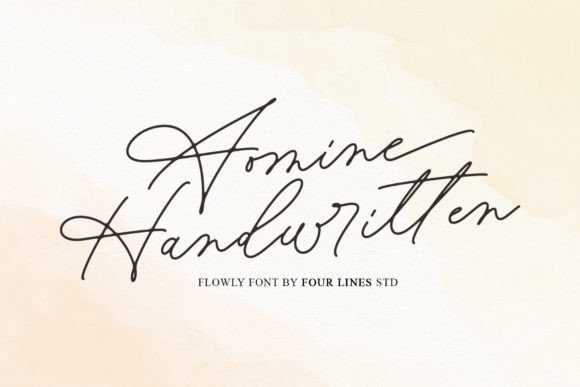
The Aomine Font: A Delicate, Elegant, and Casual Handwritten Gem
I’ll never forget the design moment when I stumbled upon the Aomine font. I was working on a project for a client who wanted a custom branding package, and I was struggling to find the perfect font to match their playful yet sophisticated vibe. That’s when I discovered Aomine, a delicate, elegant, and casual handwritten font that has since become a staple in my design toolkit.
As a designer, I’m always on the lookout for fonts that can elevate my projects and make them stand out. Here’s what I love about Aomine:
• ✨ Balanced characters: Aomine’s characters are meticulously crafted to ensure balance and harmony, making it perfect for a wide range of designs.
• ✅ Elegant and casual: This font seamlessly blends elegance and casualness, making it ideal for projects that require a touch of sophistication and playfulness.
• 💫 Versatility: Aomine matches a wide pool of designs, from modern and minimalist to vintage and whimsical.
While Aomine is an excellent font, it’s not without its quirks:
• 🤔 Limited availability of certain glyphs: Some users have reported that certain glyphs, such as ligatures, are not readily available.
• ⚠️ Occasional kerning issues: As with any font, kerning issues may arise, especially when using Aomine in combination with other fonts.
The Designer Inspiration Behind Aomine
Aomine’s design story is one of passion and creativity. While the true origins of the font are unclear, it’s said that the designer was inspired by the beauty of handwritten letters and the need for a font that could capture the essence of elegance and casualness. Through countless hours of refinement and iteration, Aomine was born – a font that’s both delicate and bold, elegant and playful.
What is Aomine font? Aomine is a delicate, elegant, and casual handwritten font that’s perfect for a wide range of designs.
Is Aomine suitable for body text? While Aomine is a beautiful font, it’s best suited for headlines, titles, and short paragraphs. For body text, you may prefer a font with better legibility.